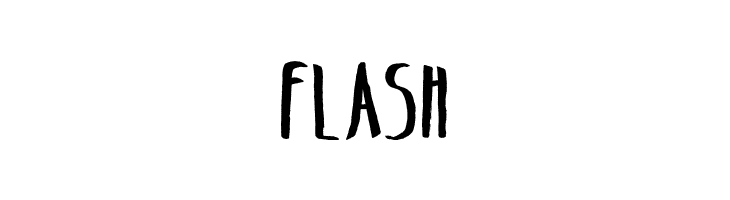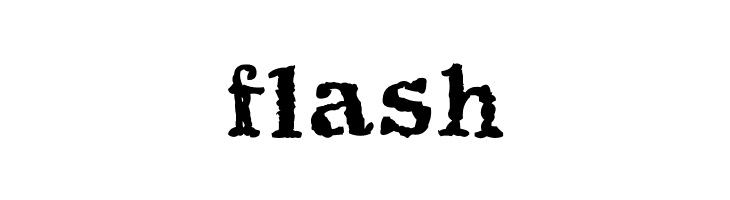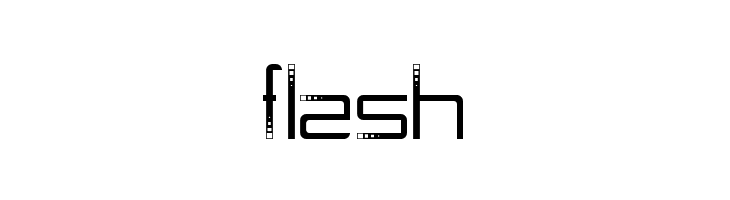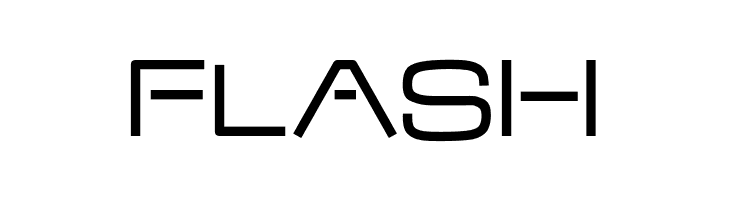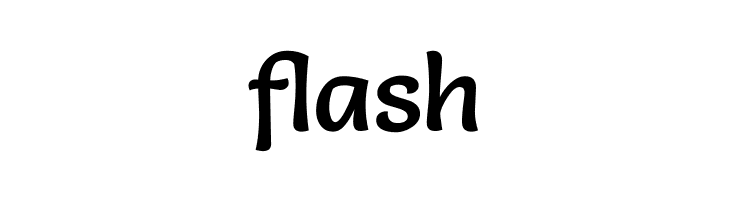
Boogaloo Font
A playful, bold font with rounded, energetic characters.
Boogaloo Regular Font
A playful, bold font with a retro vibe and rounded characters.
Salsa-Regular Font
A lively, playful font with rounded, hand-drawn strokes.
Germania One Font
A bold, modern blackletter-inspired font with strong vertical lines and sharp angles.
Convergence-Regular Font
A clean, modern sans-serif font with consistent stroke widths and geometric letterforms.
NFNGroteskBold Font
A modern, bold typeface with clean lines and uniform stroke width.
Belta Regular Font
A hand-drawn, playful font with tall, narrow characters and uneven strokes.
Macondo Font
A playful and whimsical font with rounded, flowing letterforms.
Macondo Swash Caps Font
A whimsical and decorative font with swash elements and artistic flair.
Belta Bold Font
A bold, hand-drawn font with an expressive and dynamic style.
Crimson Medium Font
A sleek, modern font with a geometric and technical design.
Beltway Prophecy Irregular Font
A bold, irregular font with a distressed, hand-crafted style.
BeltaRegular Font
A playful, hand-drawn font with tall, narrow letterforms and a whimsical style.
BeltaBold Font
A bold, hand-drawn font with an expressive and dynamic style.
Belta Light Font
A slender, hand-drawn font with a light and airy aesthetic.
Kuiper Belt Font
A modern, geometric font with rounded, uniform characters.
Beltane Font
A bold, distressed font with a vintage, hand-crafted appearance.
NoFancyName Ligaturen Font
A modern, geometric font with clean lines and a sleek, sophisticated appearance.
NFNGroteskCapsBold Font
A bold, modern sans-serif font with geometric shapes and uniform strokes.